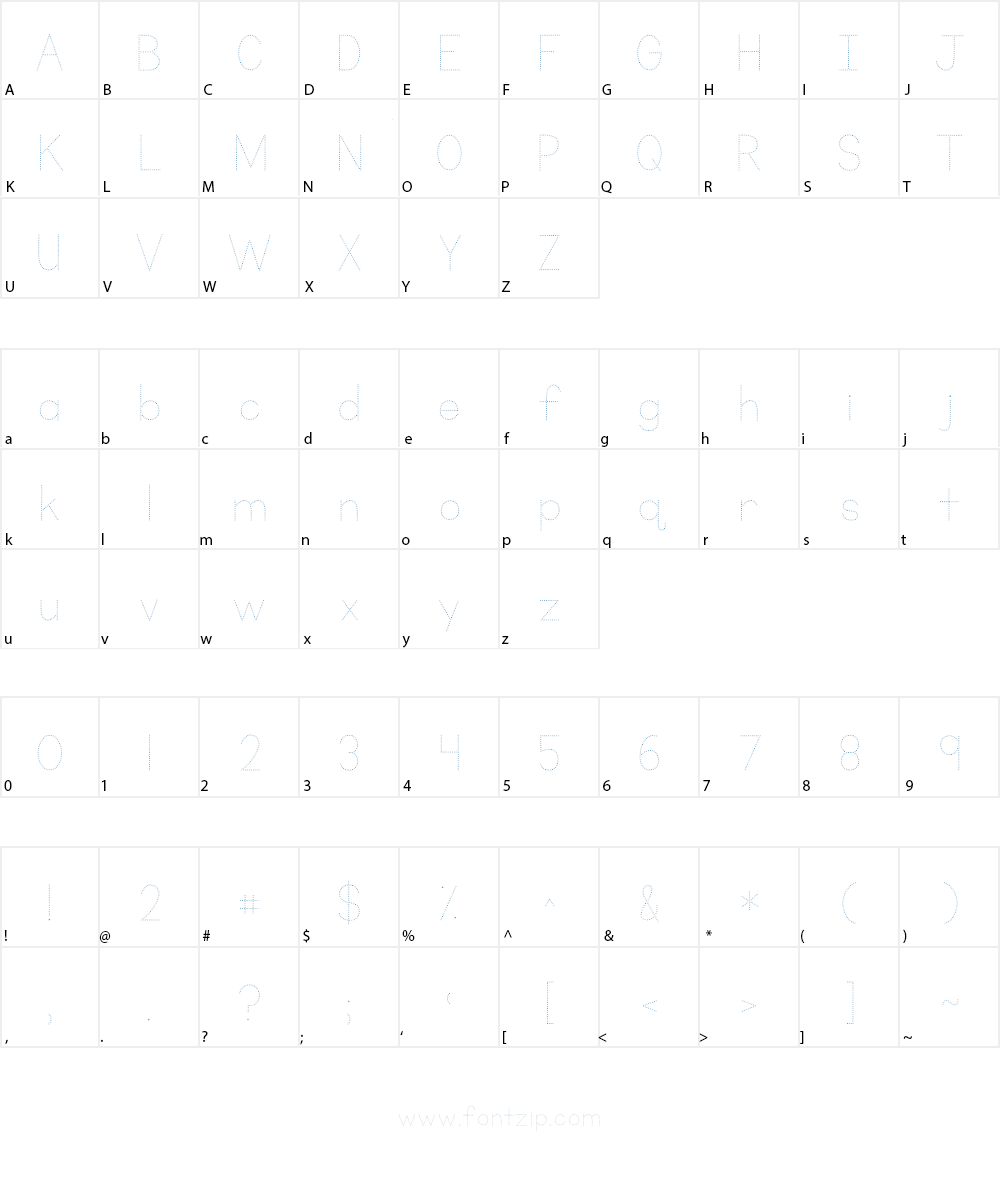
Dotted handwriting for students to trace when practicing penmanship. Perfect for elementary teachers and parents of young children! Use the spacebar to create blank handwriting lines.